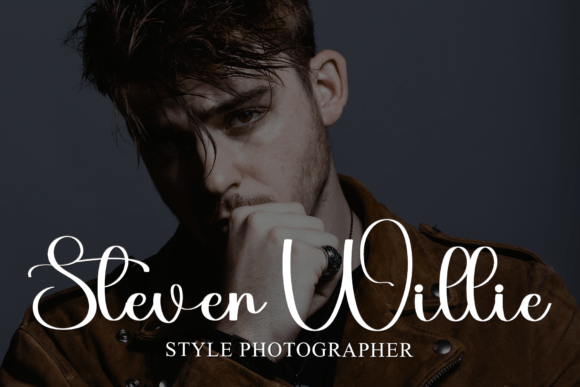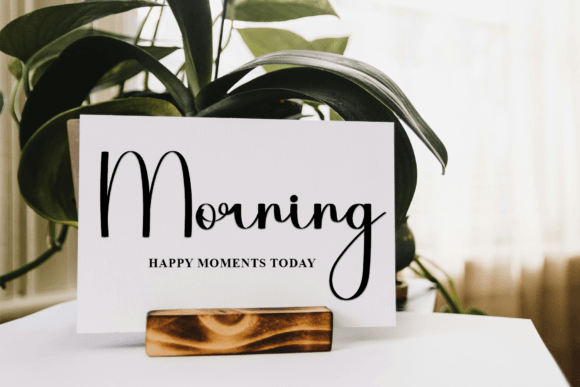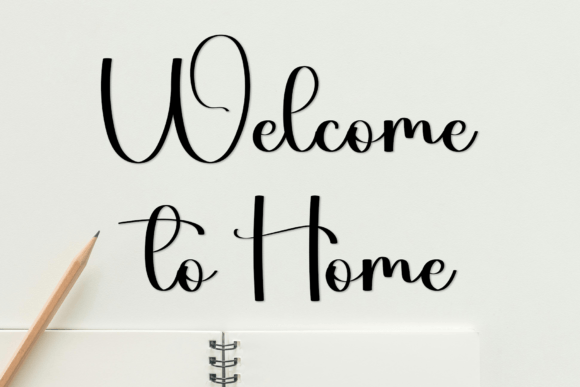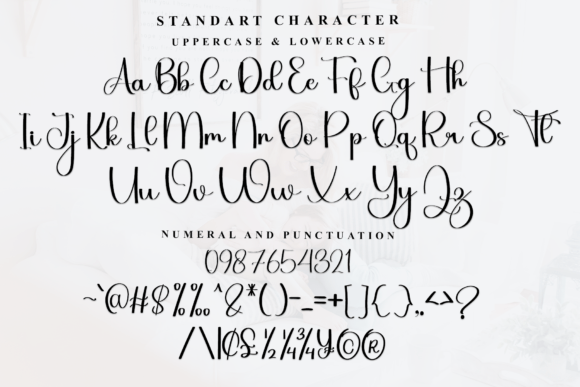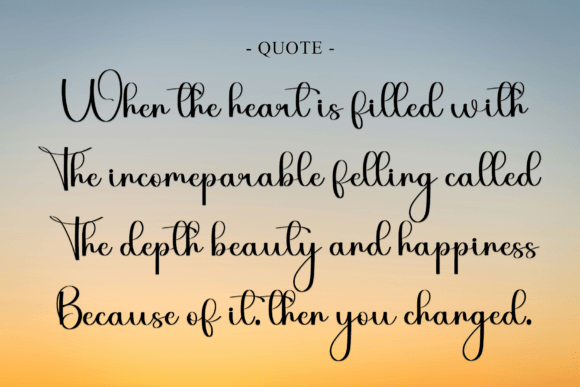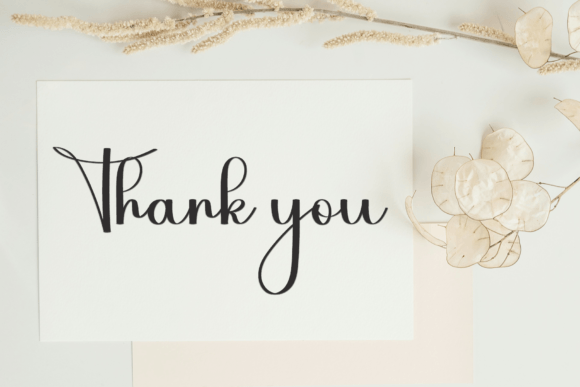
Introducing Creative Solitude Font: A Festive and Happy Typeface for the Holiday Season
Are you looking for a font that embodies the spirit of the holiday season? Do you want to add a touch of charm and nostalgia to your designs? Look no further than Creative Solitude Font, a festive and happy typeface that’s perfect for greeting cards, gift labels, and holiday-themed projects.
A Festive and Happy Typeface
Creative Solitude Font is a unique and decorative typeface that’s specifically designed to capture the essence of the holiday season. With its intricate details and ornate elements, this font is sure to add a touch of magic to your designs. Whether you’re creating holiday greeting cards, gift tags, or festive posters, Creative Solitude Font is the perfect choice.
Decorative Elements and Unique Flair
One of the standout features of Creative Solitude Font is its decorative elements and unique flair. The font features a range of intricate details, including swashes, ligatures, and glyphs, that add a touch of elegance and sophistication to your designs. With Creative Solitude Font, you can create beautiful and eye-catching designs that are sure to impress.
Creative Solitude Font is perfect for a range of holiday-themed projects, including:
- Greeting cards: Create beautiful and festive holiday greeting cards that are sure to delight your friends and family.
- Gift labels: Add a touch of charm and elegance to your gift labels with Creative Solitude Font.
- Holiday posters: Create eye-catching and festive posters that capture the spirit of the holiday season.
- Social media graphics: Add a touch of holiday cheer to your social media graphics with Creative Solitude Font.
Creative Solitude Font is PUA coded, which means that you can access all the amazing glyphs and ligatures easily. PUA (Private Use Area) coding allows you to access the font’s built-in features, including swashes, ligatures, and glyphs, using a keyboard shortcut or through a font editing software. This makes it easy to add a touch of elegance and sophistication to your designs.
Creative Solitude Font offers a range of benefits for designers and crafters, including:
- Customization: With PUA coding, you can easily access the font’s built-in features and customize your designs.
- Versatility: Creative Solitude Font is perfect for a range of holiday-themed projects, from greeting cards to social media graphics.
- Unique designs: With its decorative elements and unique flair, Creative Solitude Font allows you to create unique and eye-catching designs that stand out from the crowd.
Tips for Using Creative Solitude Font
Here are some tips for using Creative Solitude Font in your designs:
- Experiment with different sizes and colors to add a touch of drama and elegance to your designs.
- Use the font’s built-in features, such as swashes and ligatures, to add a touch of sophistication to your designs.
- Combine Creative Solitude Font with other fonts to create a unique and eye-catching design.
- Use the font for a range of holiday-themed projects, from greeting cards to social media graphics.
Creative Solitude Font is a festive and happy typeface that’s perfect for the holiday season. With its decorative elements and unique flair, this font adds a touch of charm and nostalgia to your designs. Whether you’re a designer or crafter, Creative Solitude Font is a great choice for a range of holiday-themed projects. So why wait? Download Creative Solitude Font today and start creating beautiful and festive designs that capture the spirit of the holiday season!